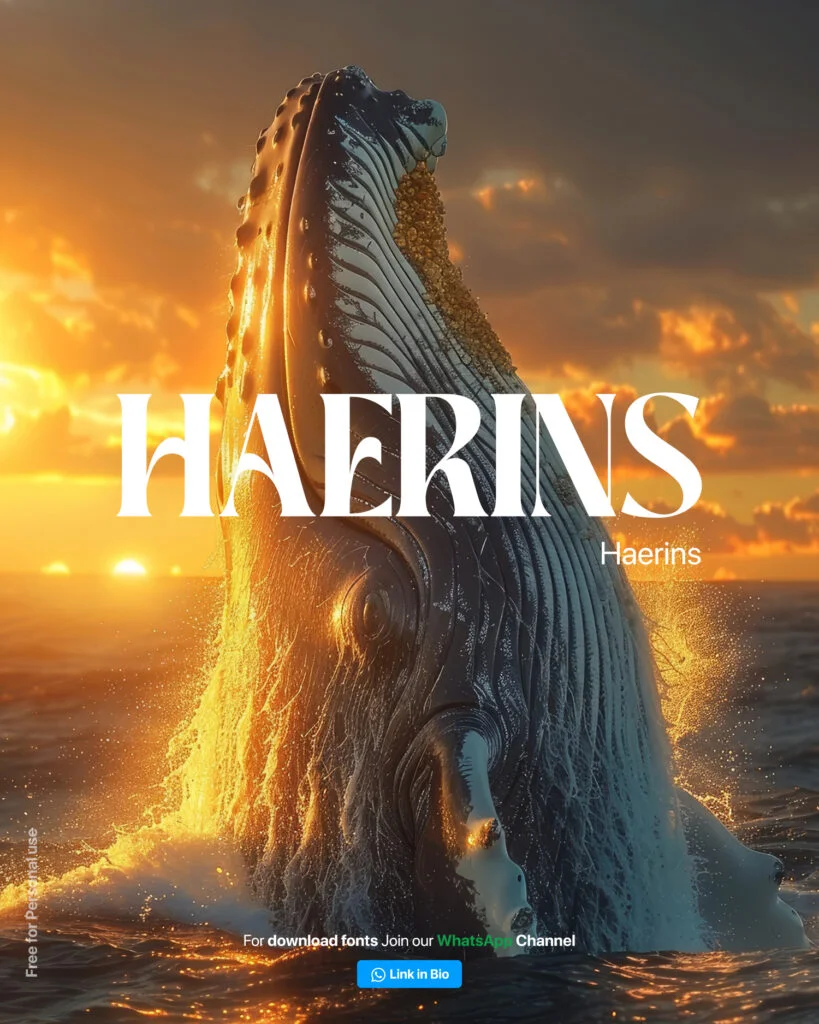
These are beautiful fonts with outstanding ligatures that is ideal for designing beauty-inspired logos for cosmetics and other high-end items. Its delicate style originates improvement and grace, making it an excellent choice for firms looking for a trendy and professional appearance.
I have shared some of the insane cover fonts that will truly transform your creativity into a solid market product swiftly!
Clasima Font
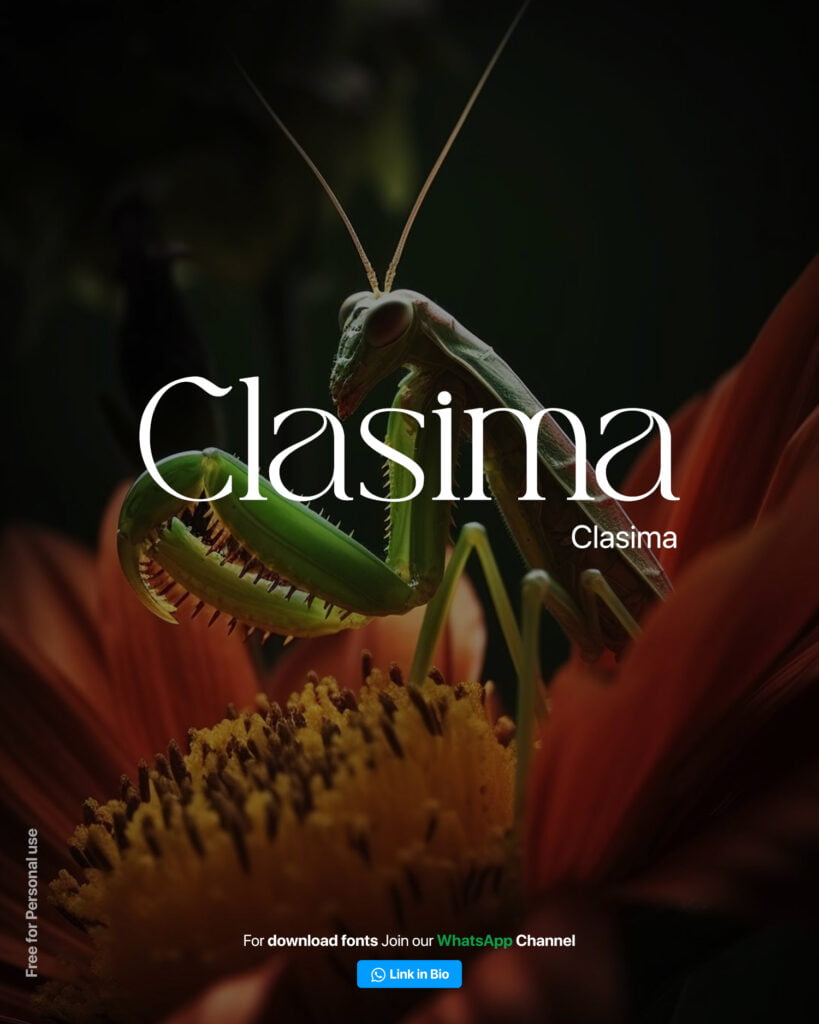
Haerins Font
Matgefo Vintage Font
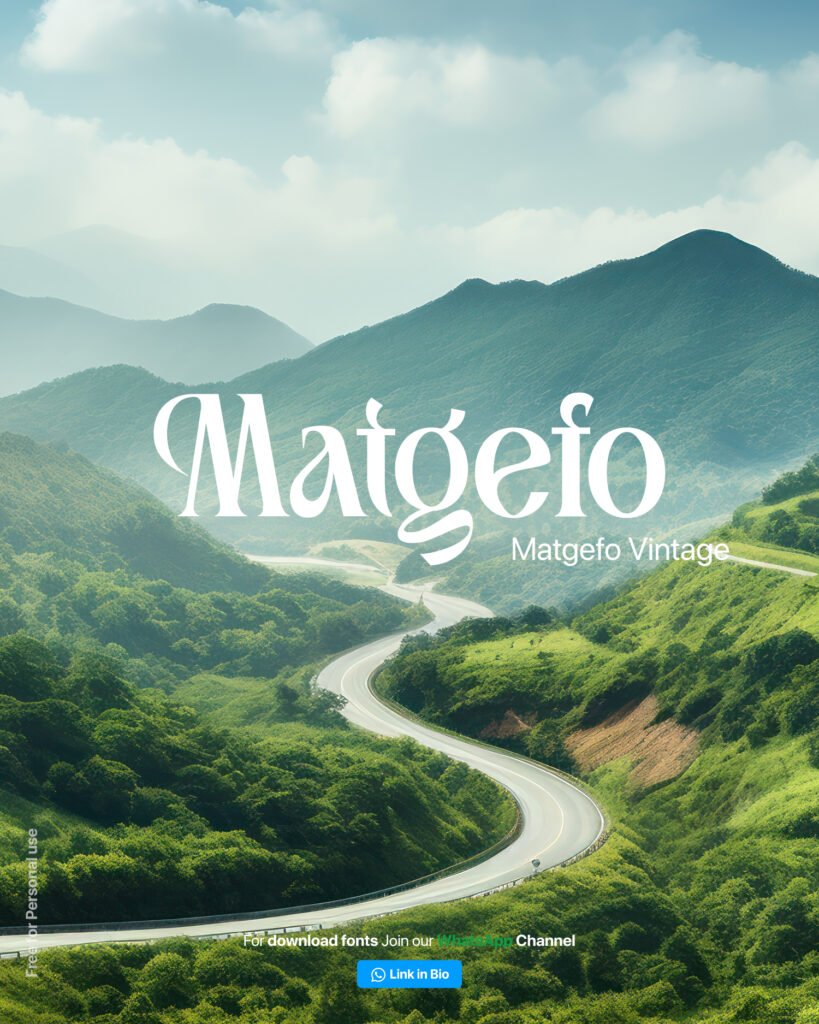
Monas Font
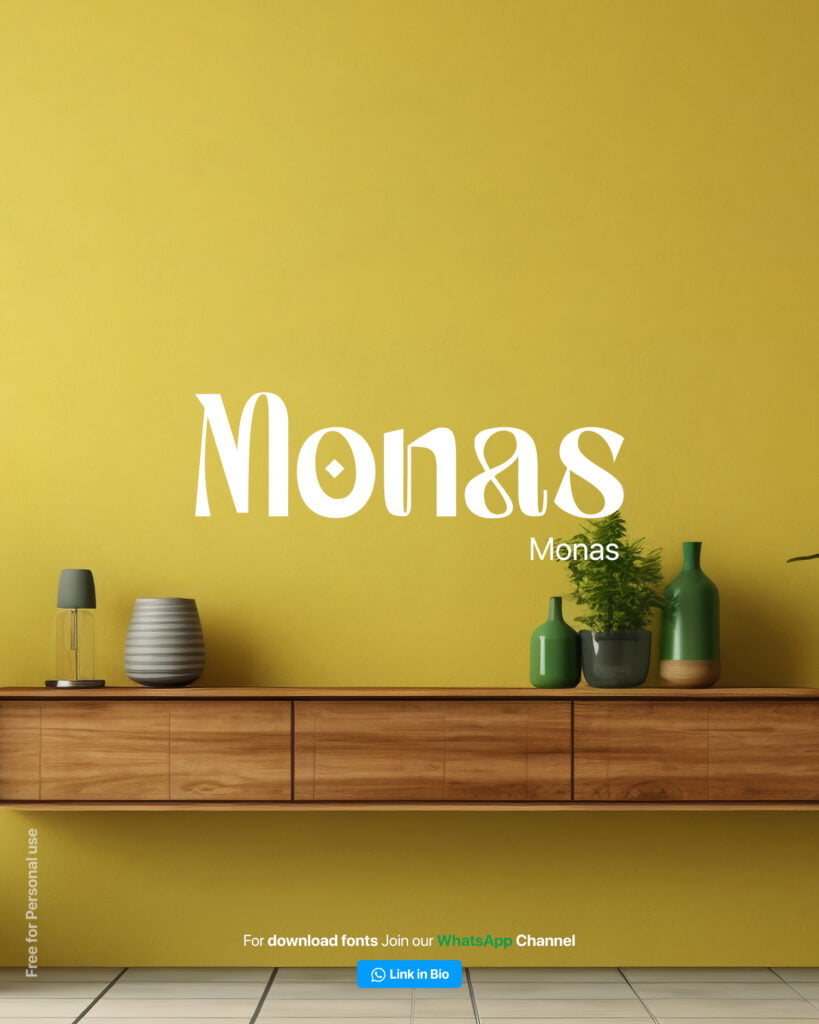
Rosseti Font
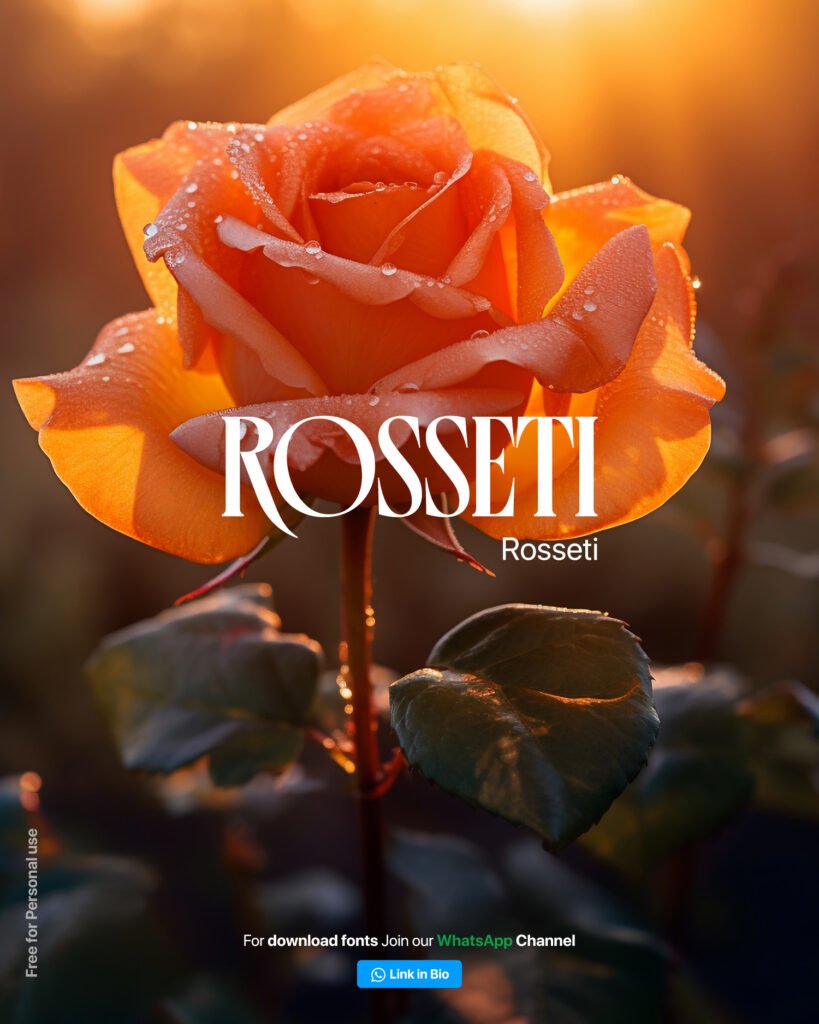
Eger Font